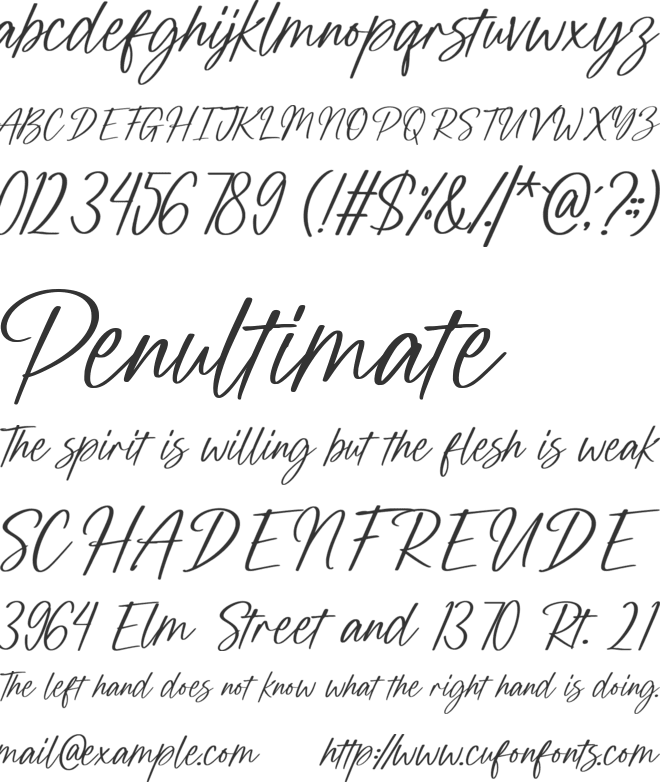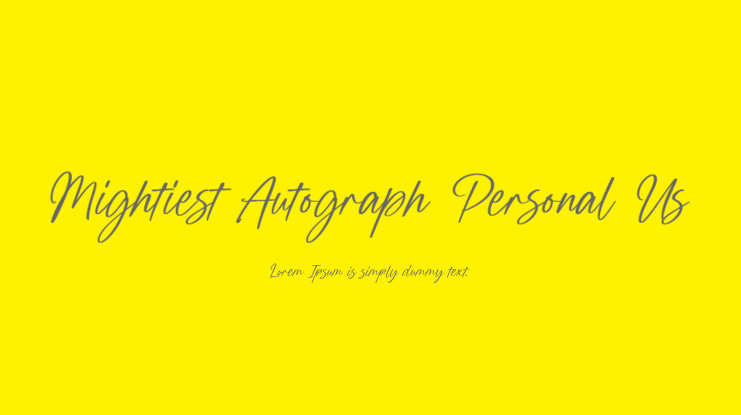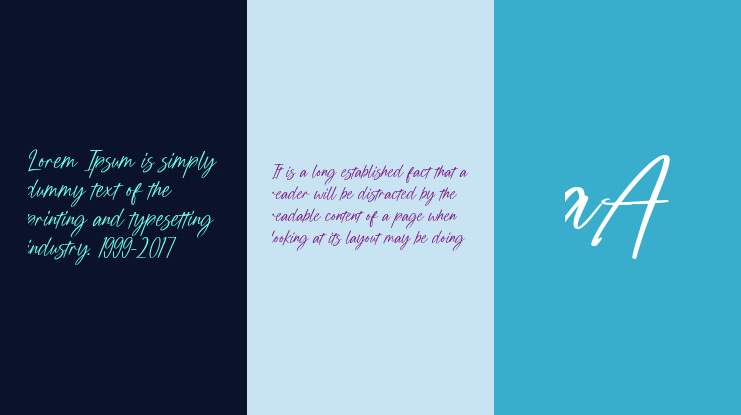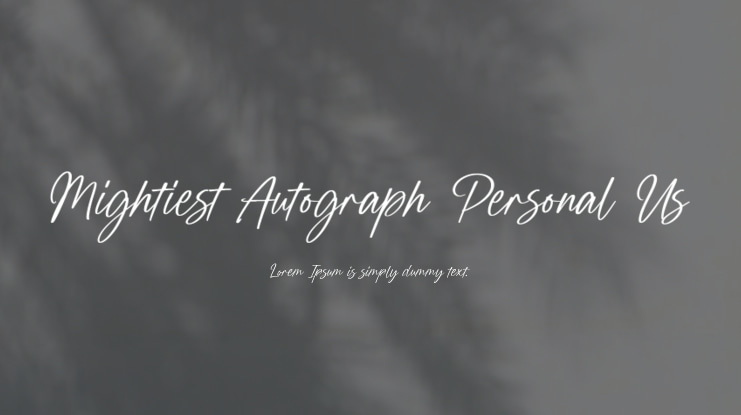
Mightiest Autograph is a handwritten font in a signature looking style to add elegant, personal nuances on your designs. The curves and wipes in the swinging ends of the letters are the main characters. Like the other cursive fonts, each letter is connected to one another to make the font legible. The letters’
proportions are made different for a more artistic looking style applicable for such romantic texts. You can apply this font for any text sizes due to its great legibility.
Features include:
• Alternates
• Ligatures
• Multilingual Supports
• PUA Encoded
• Numerals and Punctuations